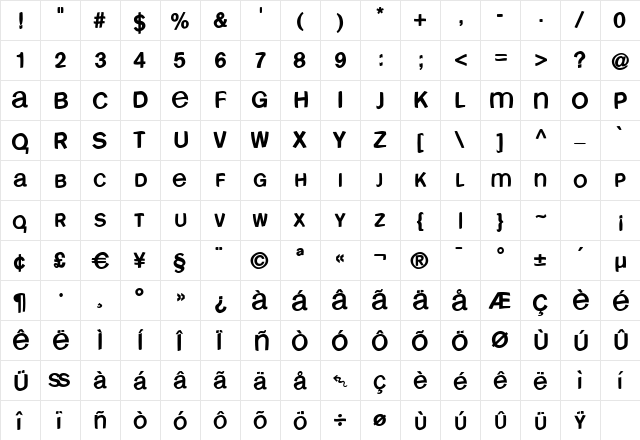
FreeBradburySans Medium
Design Context for FreeBradburySans Typeface
FreeBradburySans is a composed and adaptable typeface that performs quietly and consistently across a wide range of design contexts.